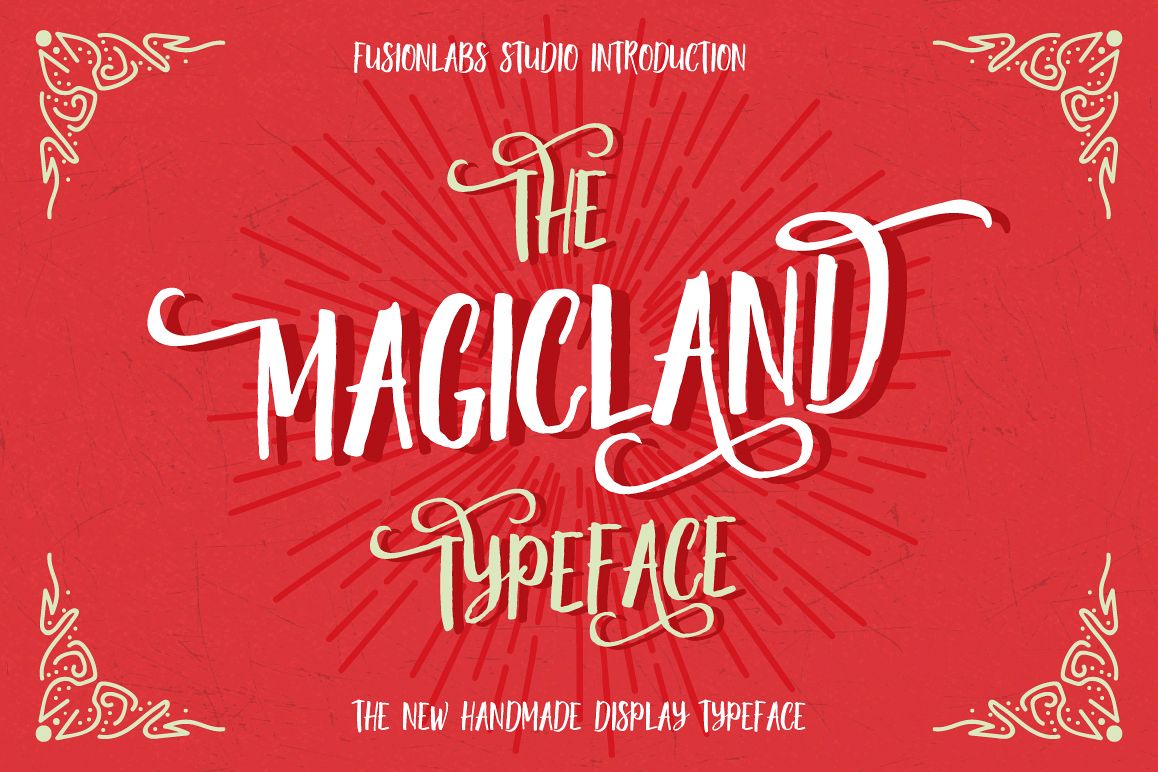
The Magicland Typeface
The Magicland Typeface is a new handmade and fun display font
intended to use in retro and vintage design styles. This font is
combination of two previous our best seller font, The Abracadabra Typeface (https://goo.gl/ZzPbsx) and The Simsalabim Typeface.
This font helps you to show the impression of rustic and vintage on the
product that you are selling, it is suitable for poster, book cover,
lettering, greeting card, t-shirt design etc.
This font contains with special ornamental uppercase that can be used to
create a stand out and attractive message.